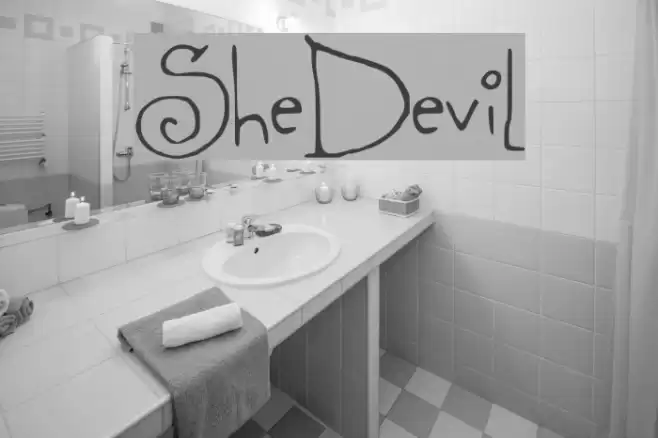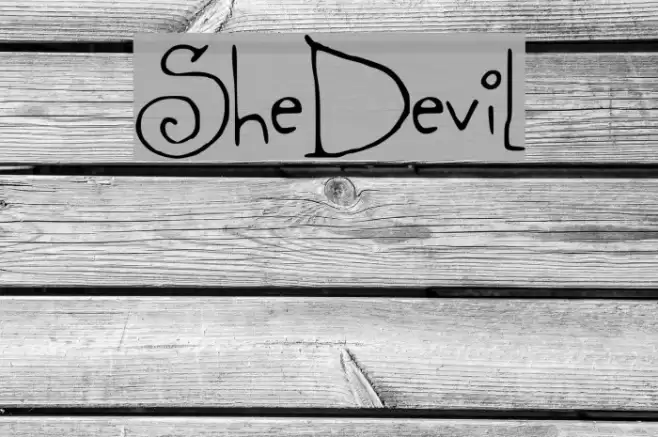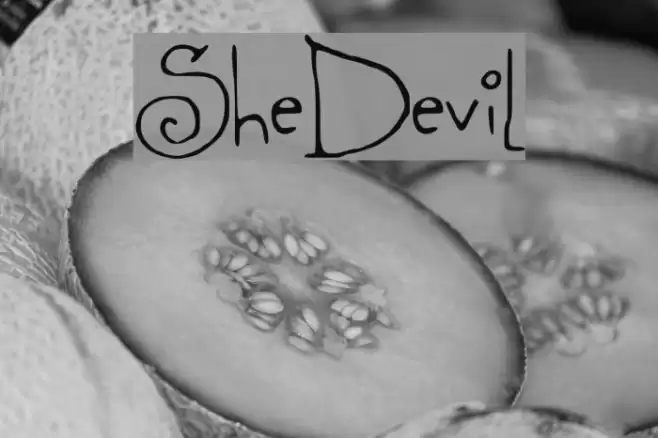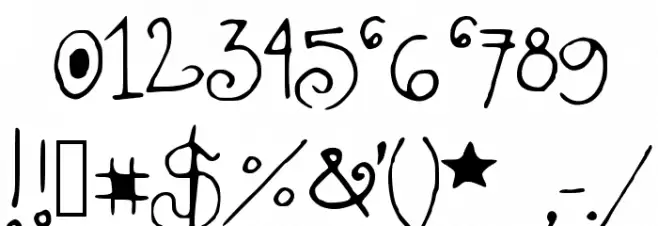
SheDevil Font
SheDevil Description
This font exhibits a playful and whimsical style, characterized by its irregular and quirky letterforms. The uppercase letters are tall and slender, with unique embellishments such as spirals and crossbars that extend beyond the typical boundaries. The lowercase letters maintain a similar playful aesthetic, with some letters featuring exaggerated loops and curves. The numerals are equally distinctive, with varying stroke thicknesses and whimsical details. Special characters continue this theme, incorporating stars and other decorative elements. Overall, the font conveys a sense of fun and creativity, making it suitable for projects that aim to capture attention and convey a lighthearted tone.
A whimsical and playful font with irregular, decorative letterforms from Curly fonts.
- Proposed Projects: Ideal for children's book covers, playful branding, party invitations, and creative posters.
- Overall Style: Playful, Whimsical